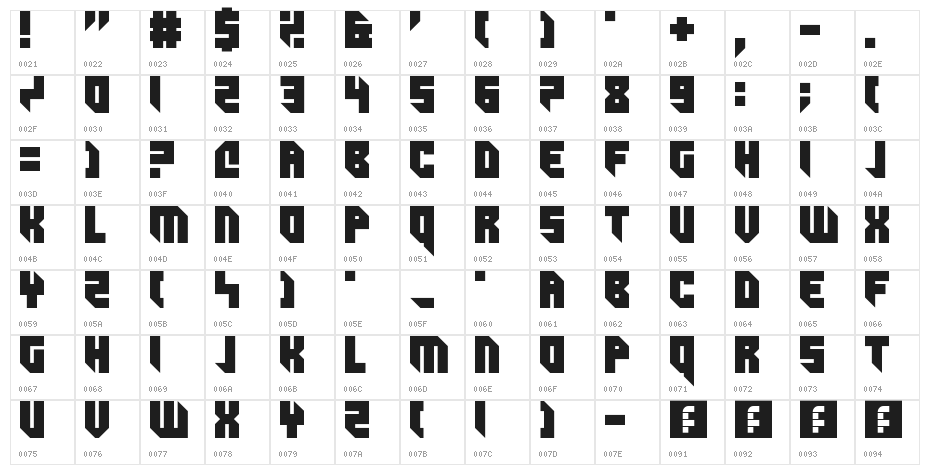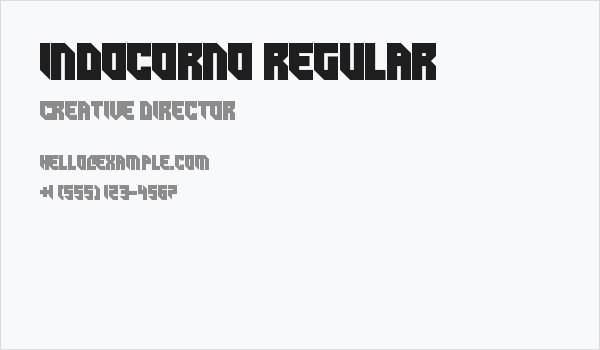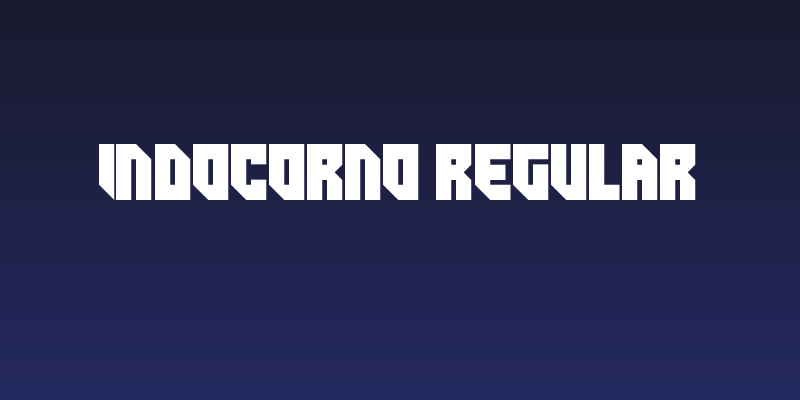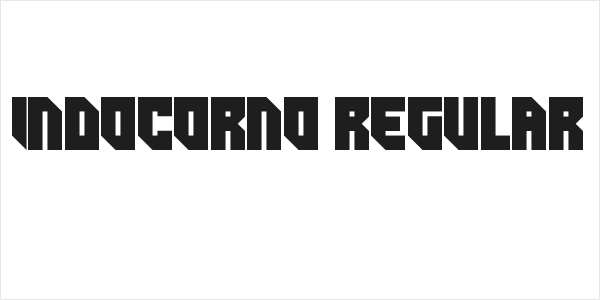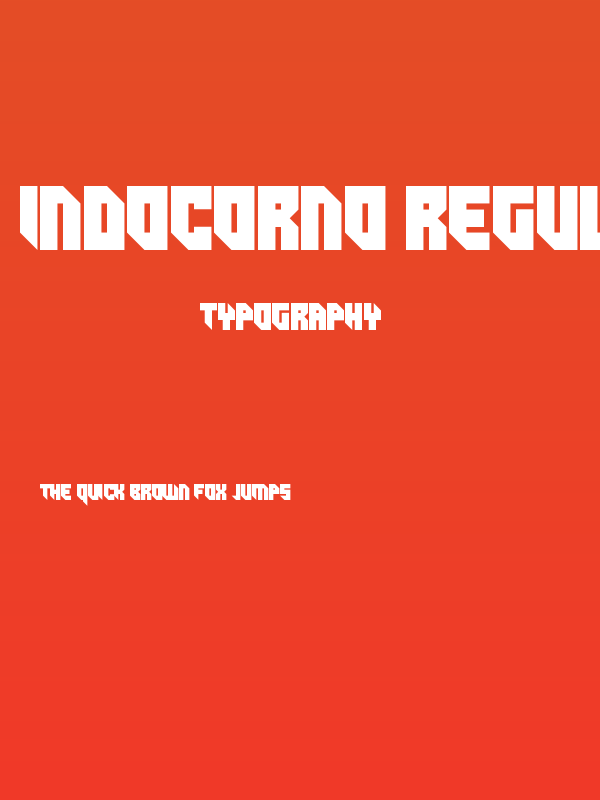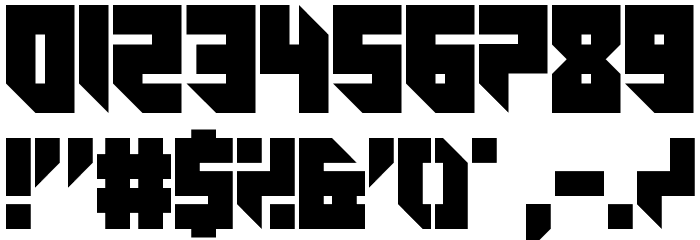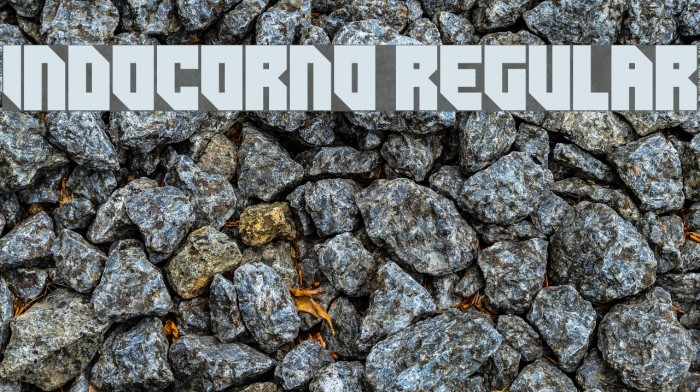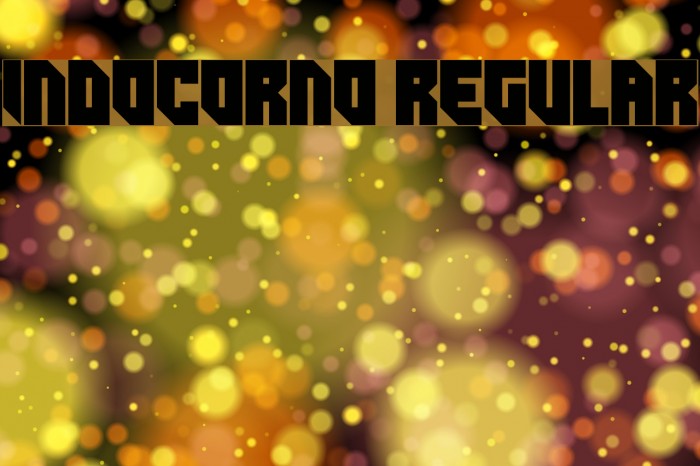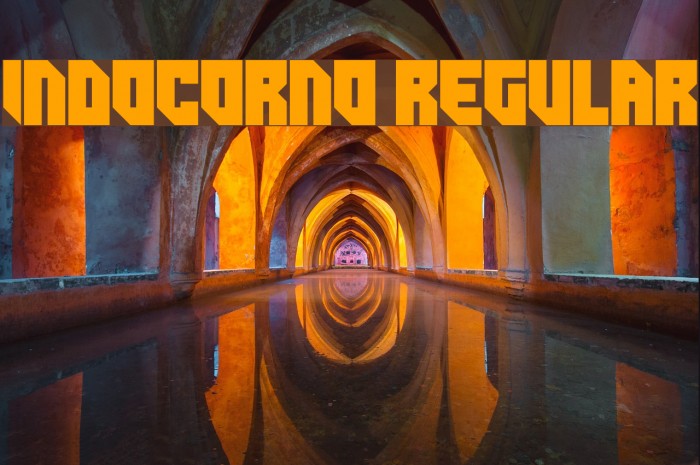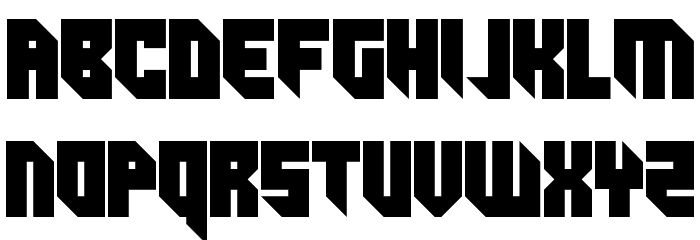
Indocorno Regular Font
This font features a bold and geometric design, characterized by sharp angles and a blocky appearance. The uppercase and lowercase letters maintain a consistent style, with each character exhibiting a strong, angular form. The numerals and special characters follow the same design principles, ensuring uniformity across all glyphs. The font's distinct style makes it highly suitable for attention-grabbing headlines or titles. Its unique geometric shapes give it a modern and edgy feel, perfect for projects that require a strong visual impact.
| Proposed Projects | Ideal for posters, logos, video game graphics, and branding materials that require a modern and bold aesthetic. |